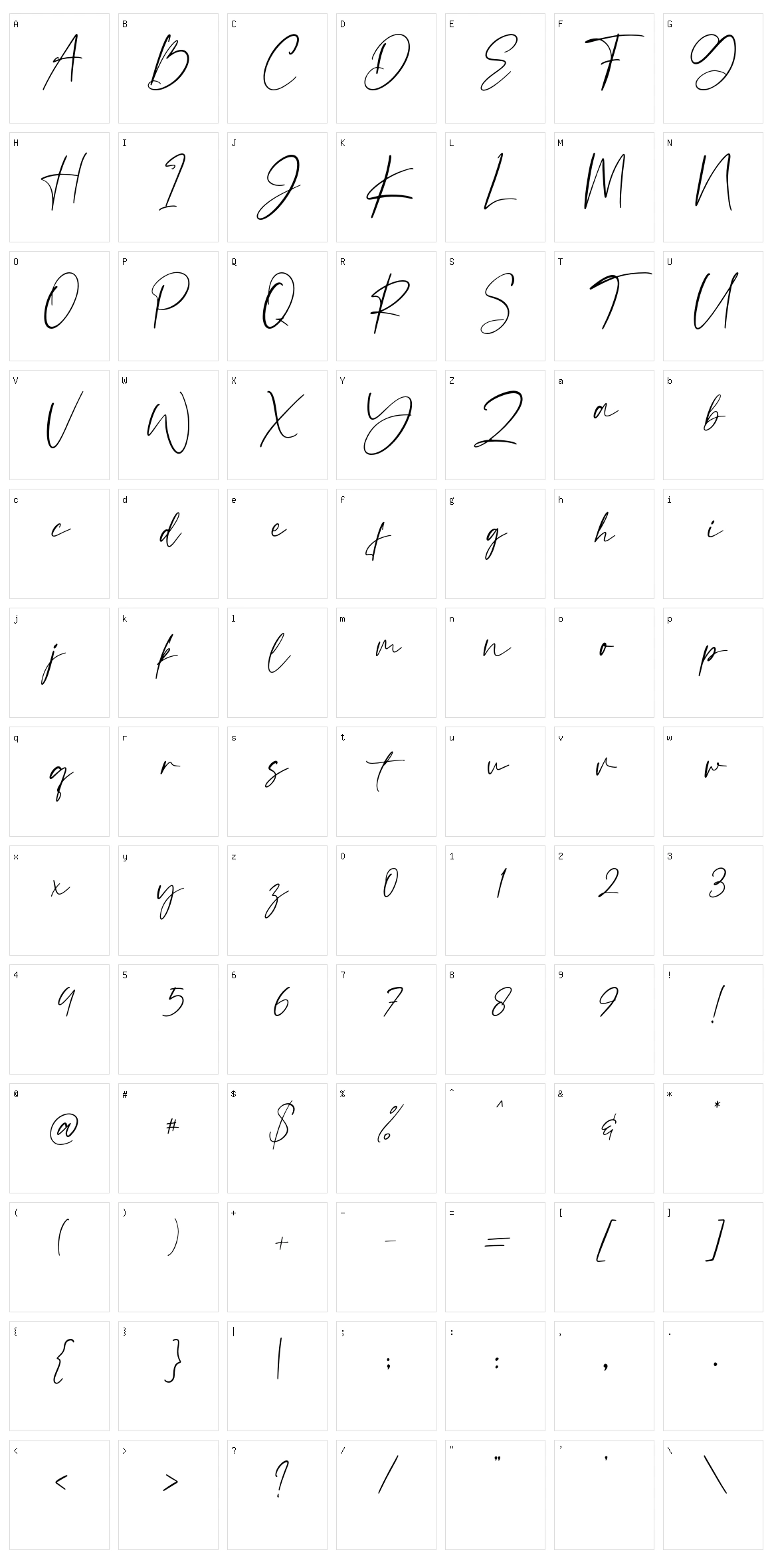
The free font Borderline is carefully designed by Hatf Type, showcasing a thoughtful balance of creativity and usability and falls under the Script font style. When you download the ZIP file, it contains only 29.16 KB of font files, making it lightweight and quick to download. Please review the license details below to understand permitted usage and distribution rights. If license information is not available, we recommend using this font for personal projects only or contacting the author directly for commercial usage permissions.